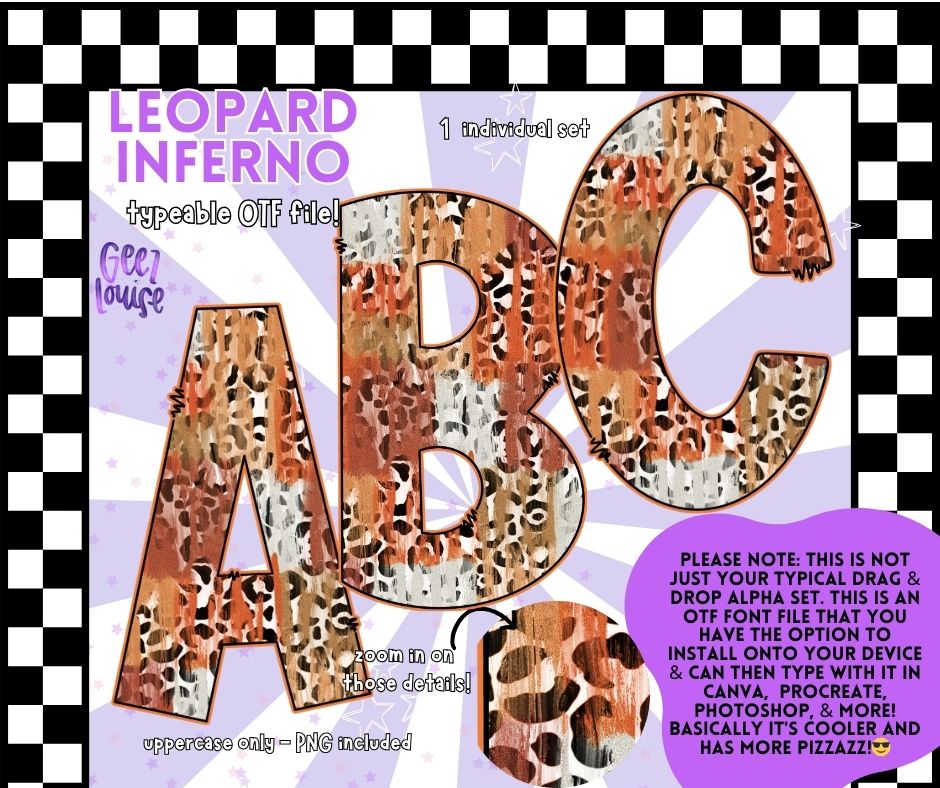
Leopard Inferno - Burnt Leopard Print OTF Font + PNG Alpha Set
Turn up the heat on your next design with our Leopard Inferno OTF Font! 🔥🐆 This smoldering alpha features warm tones, grungy texture, and bold leopard print — perfect for fall sublimation projects, edgy shirt designs, boho branding, and wild-style crafting.
✔️ Uppercase letters for fierce, bold headlines
Whether you're crafting for leopard lovers, fall launches, or just want your designs to scream hot and wild, this fiery sublimation font has the claws and the color. 💥🔥